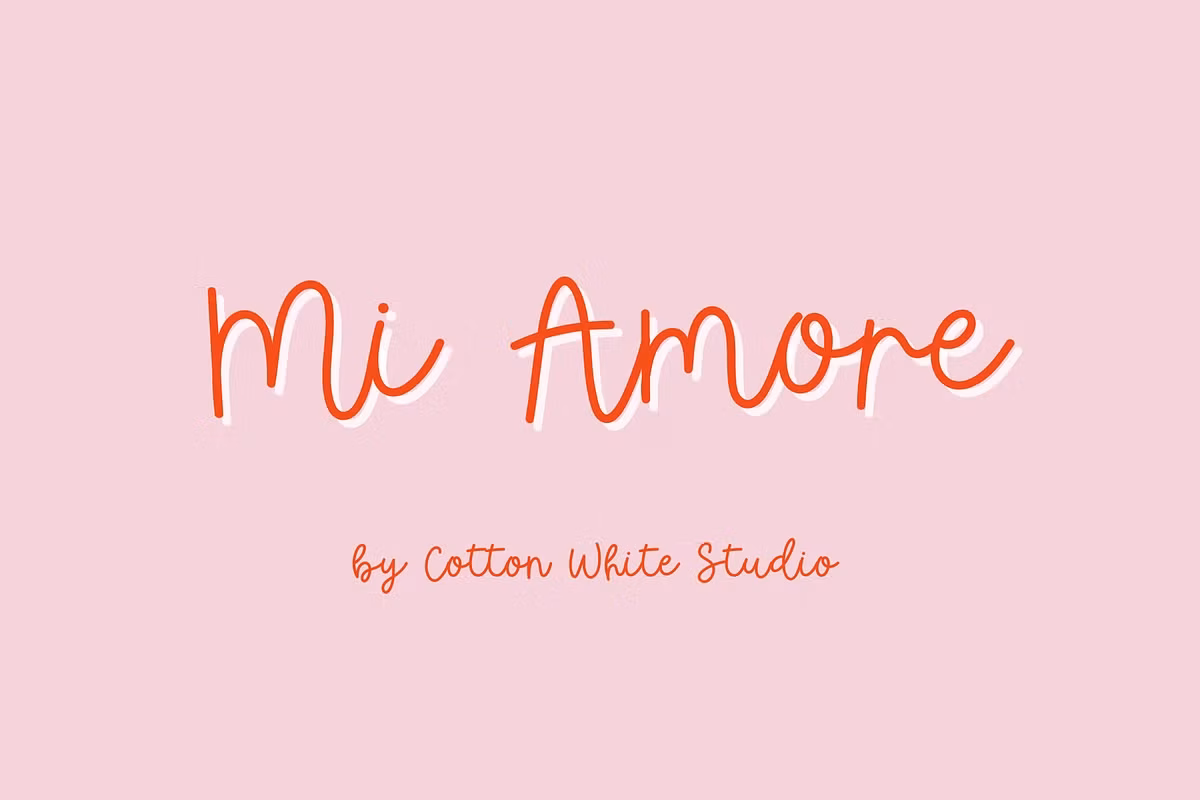
Mi Amore Free Download
Mi Amore Font Free Download
Mi Amore Font Free Download is a beautiful and elegant script typeface that brings a romantic, handwritten feel to your designs. With its smooth curves and stylish flourishes, this font is perfect for creating sophisticated logos, wedding invitations, greeting cards, branding, and more. Its flowing, cursive style exudes love and warmth, making it ideal for personal and romantic projects. Whether you're designing for a wedding, a special event, or a luxury brand, Mi Amore Font Free Download allows you to explore its graceful design in personal projects before purchasing a commercial license. Add a touch of romance and elegance to your designs with this beautifully crafted script font.